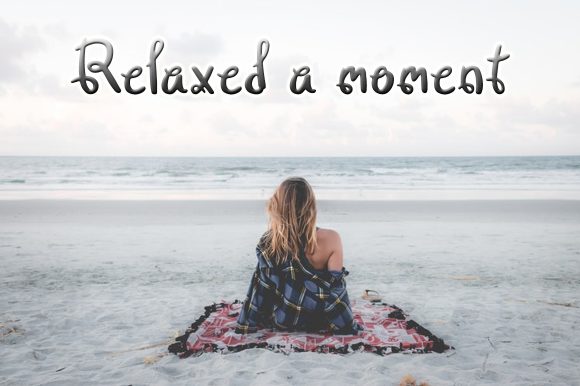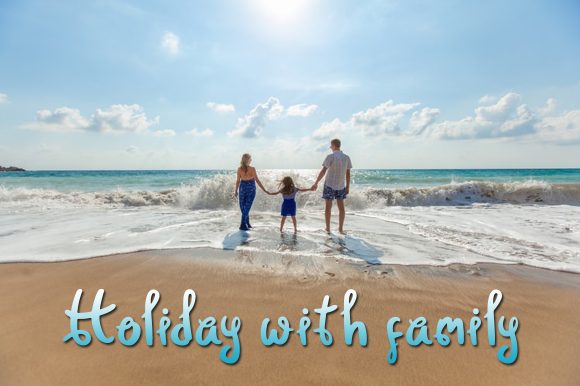
Fontma Font
db-ku.com - Script & Handwritten -- Fontma is a modern and playful handwritten font. It can be used for various purposes such as wedding invitations, headings, bag, perfume, t-shirts logos, name cards and every other design which needs a customized touch.